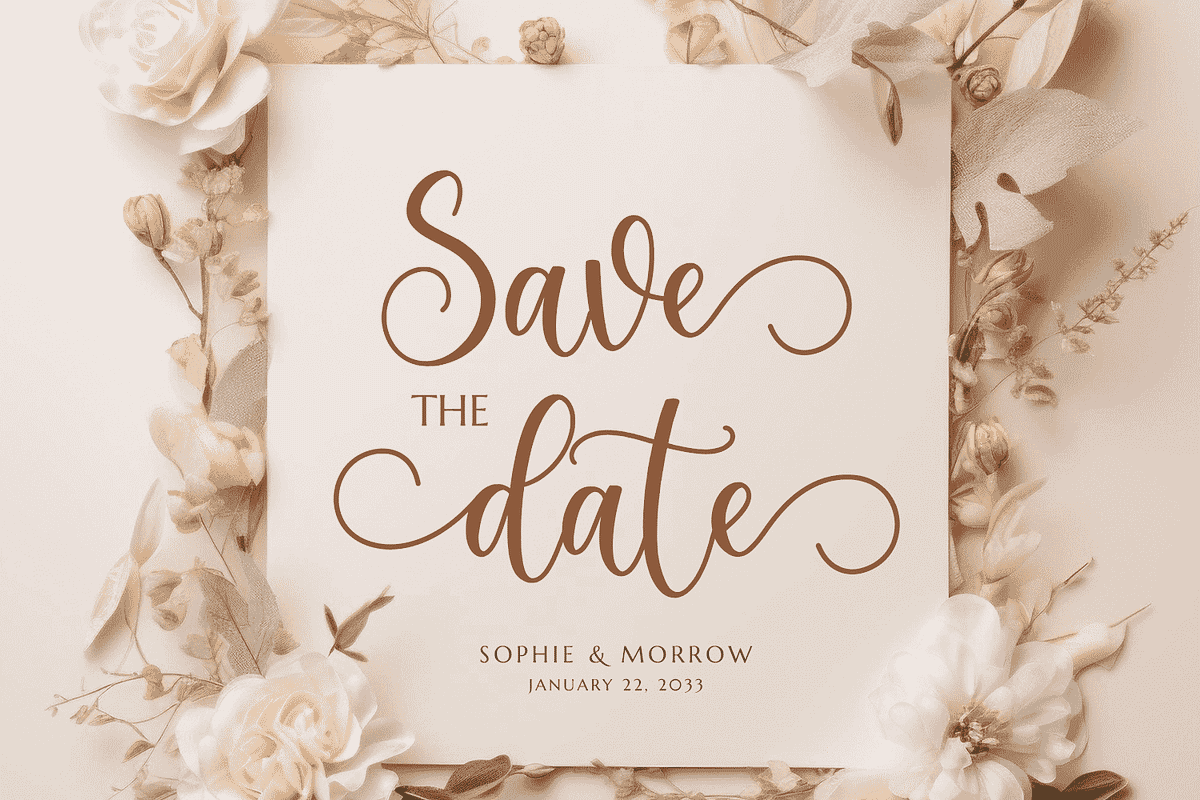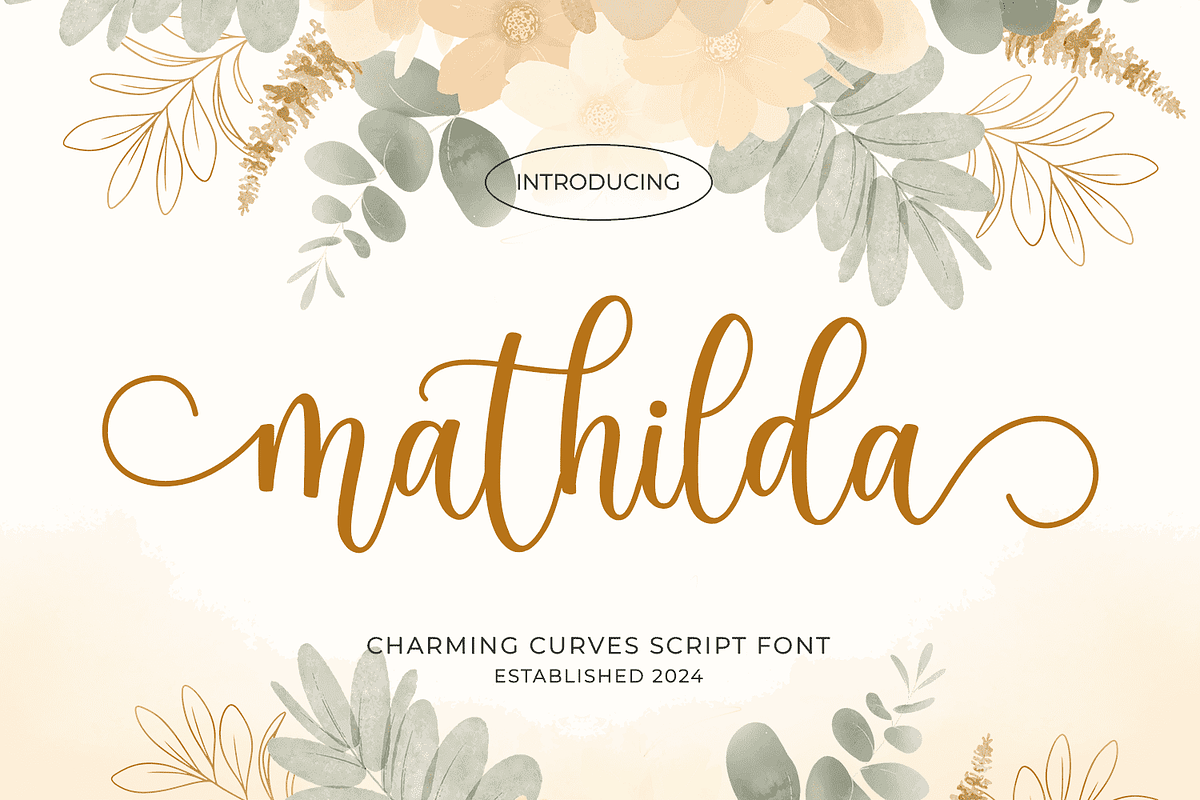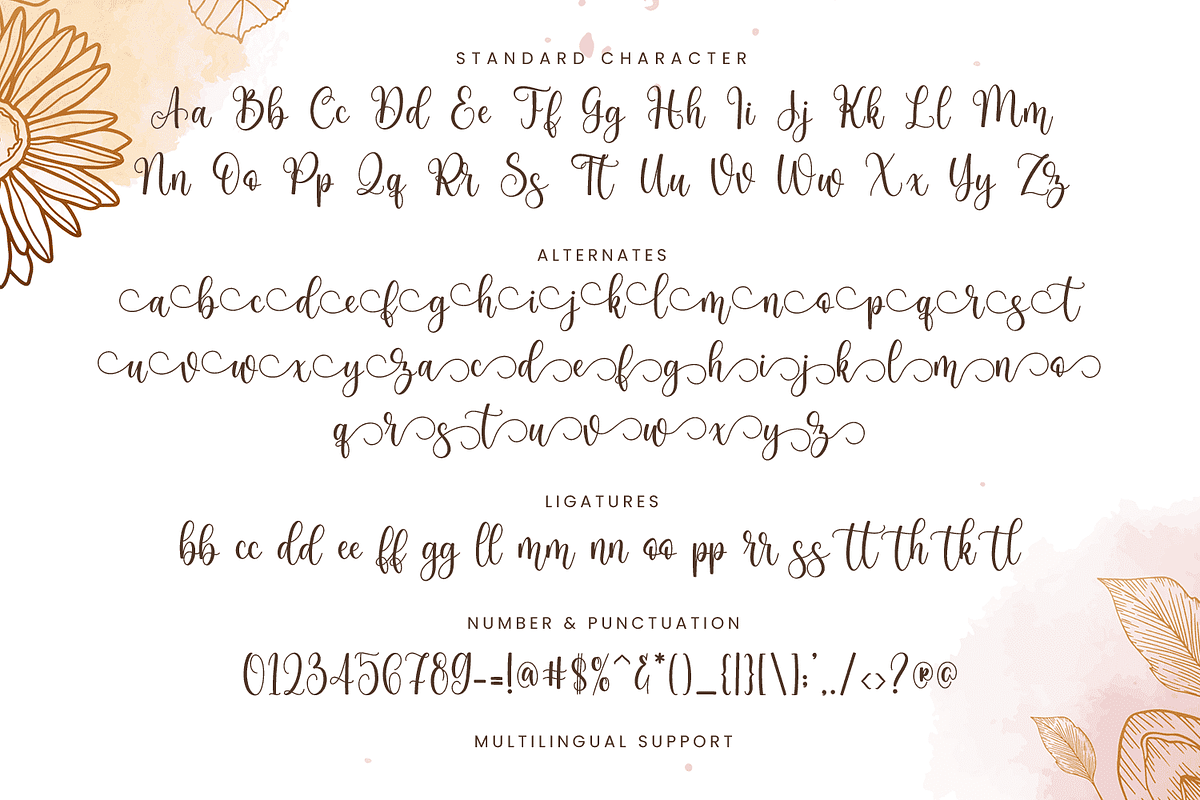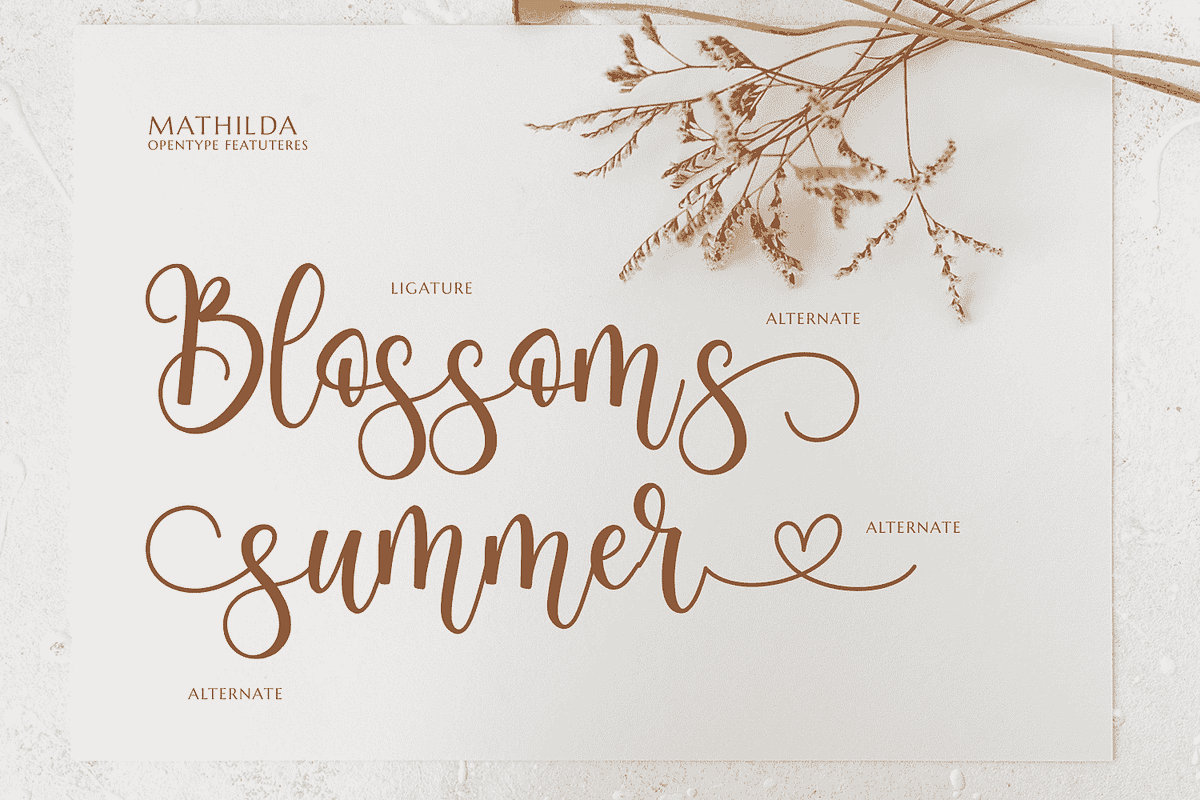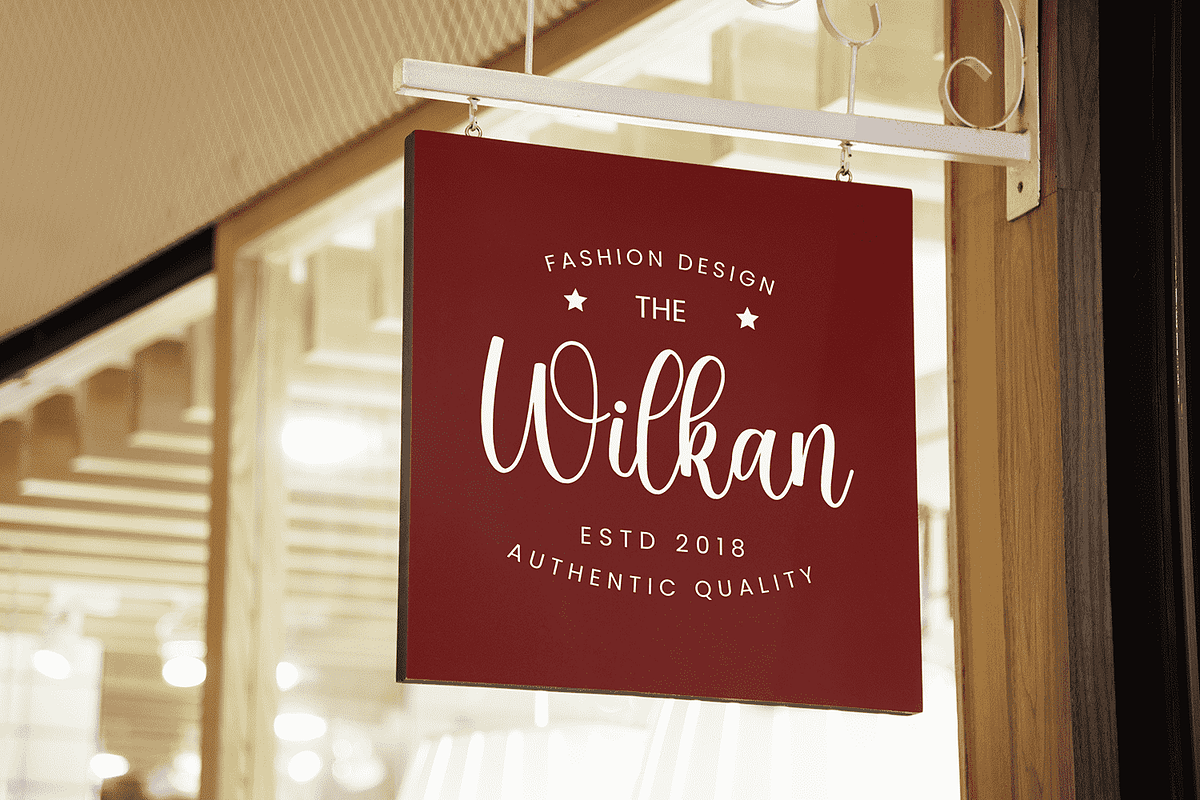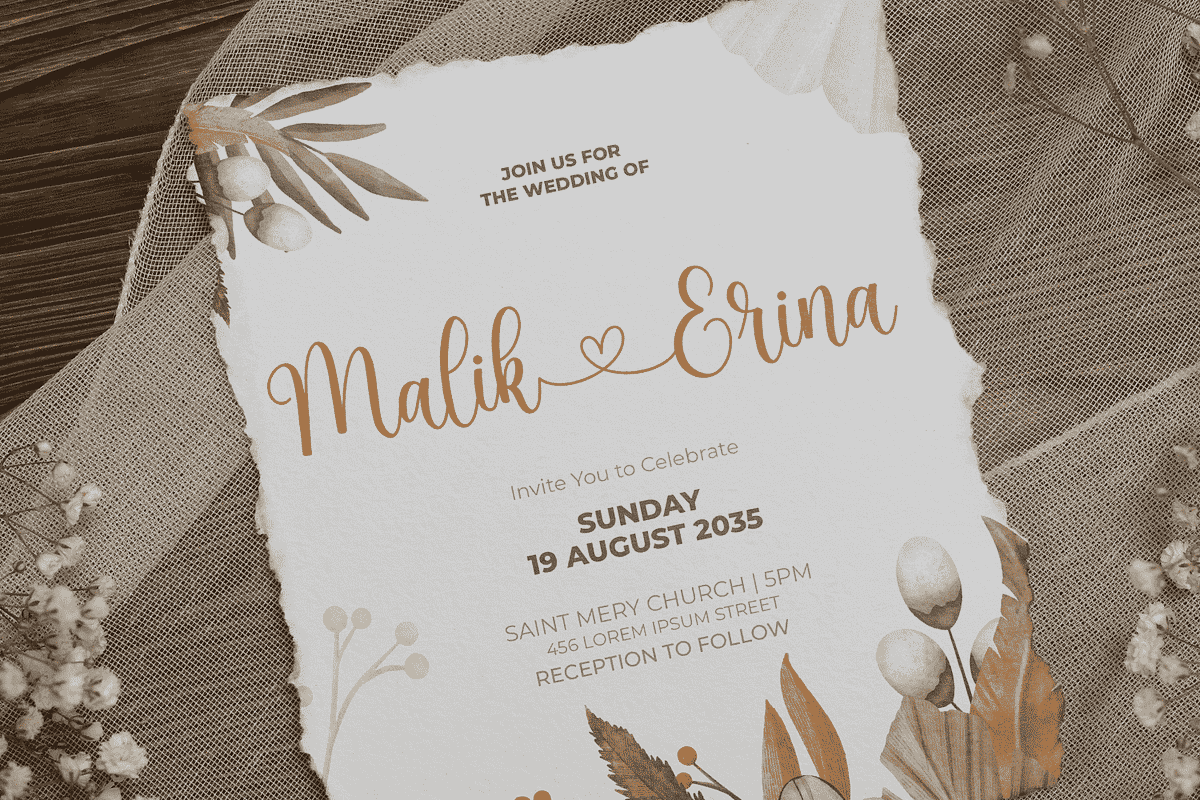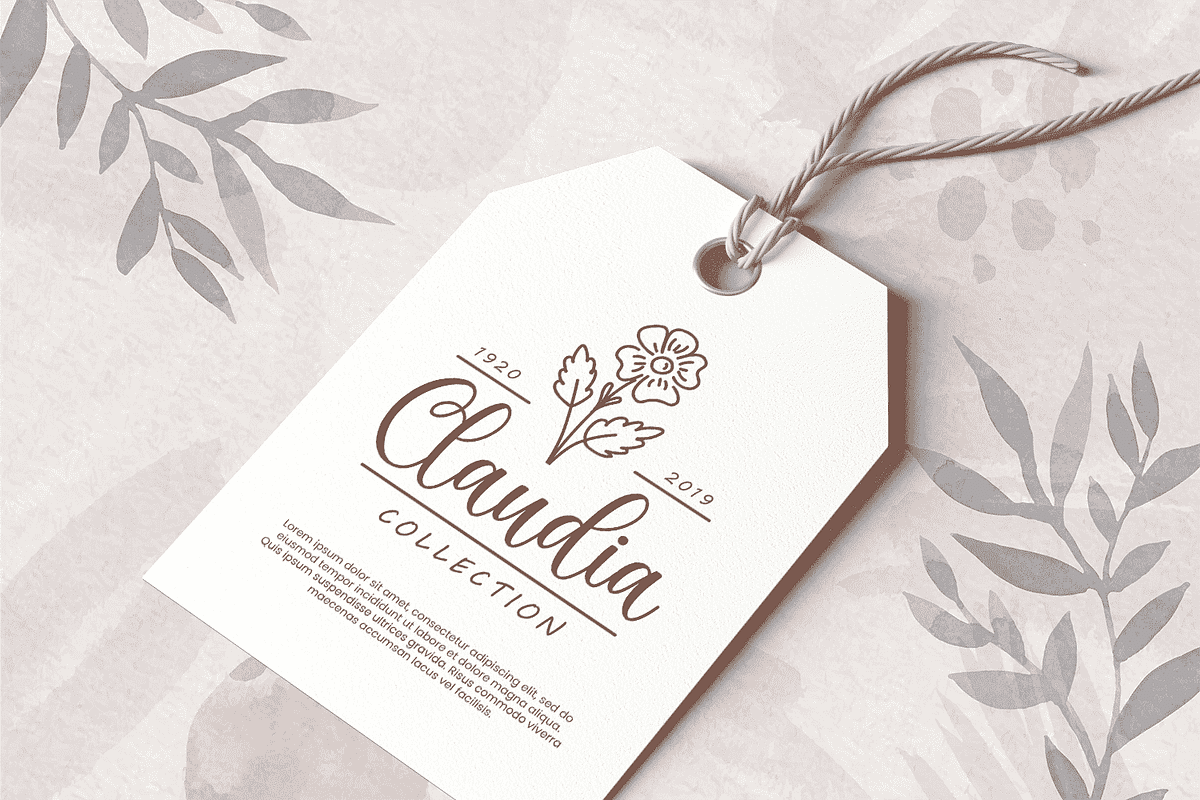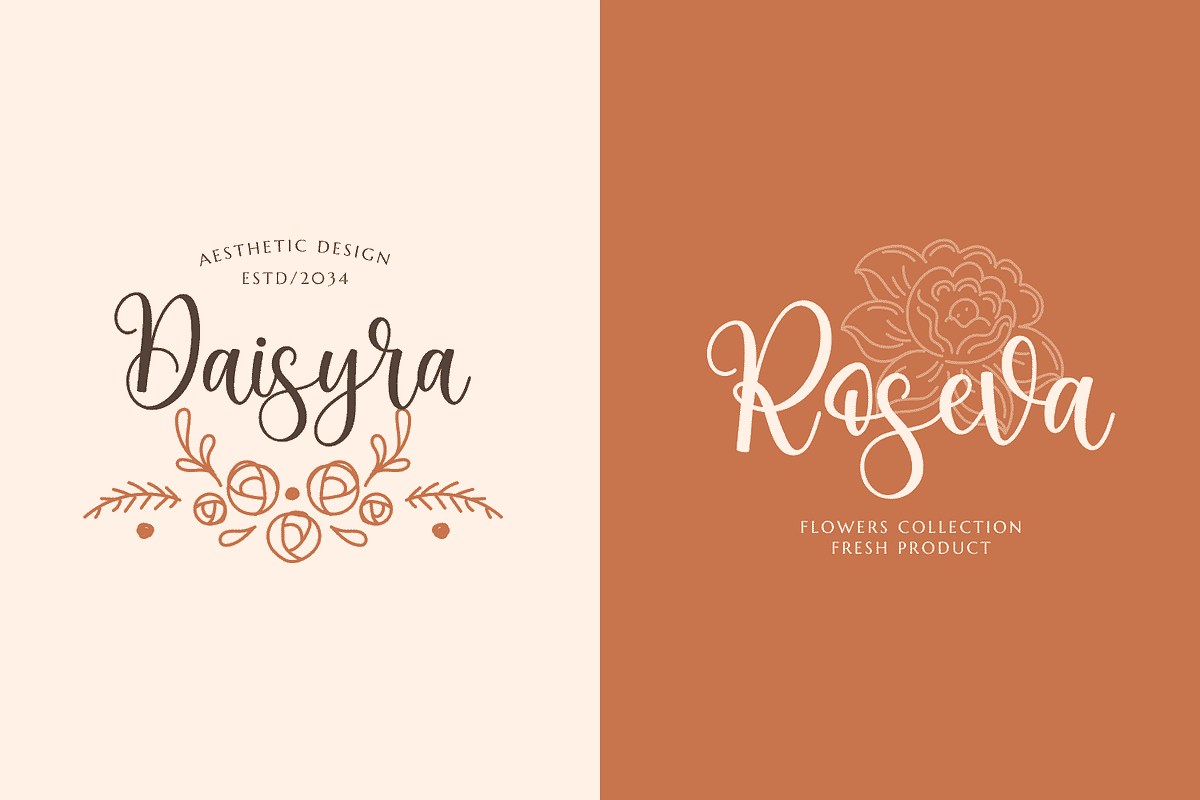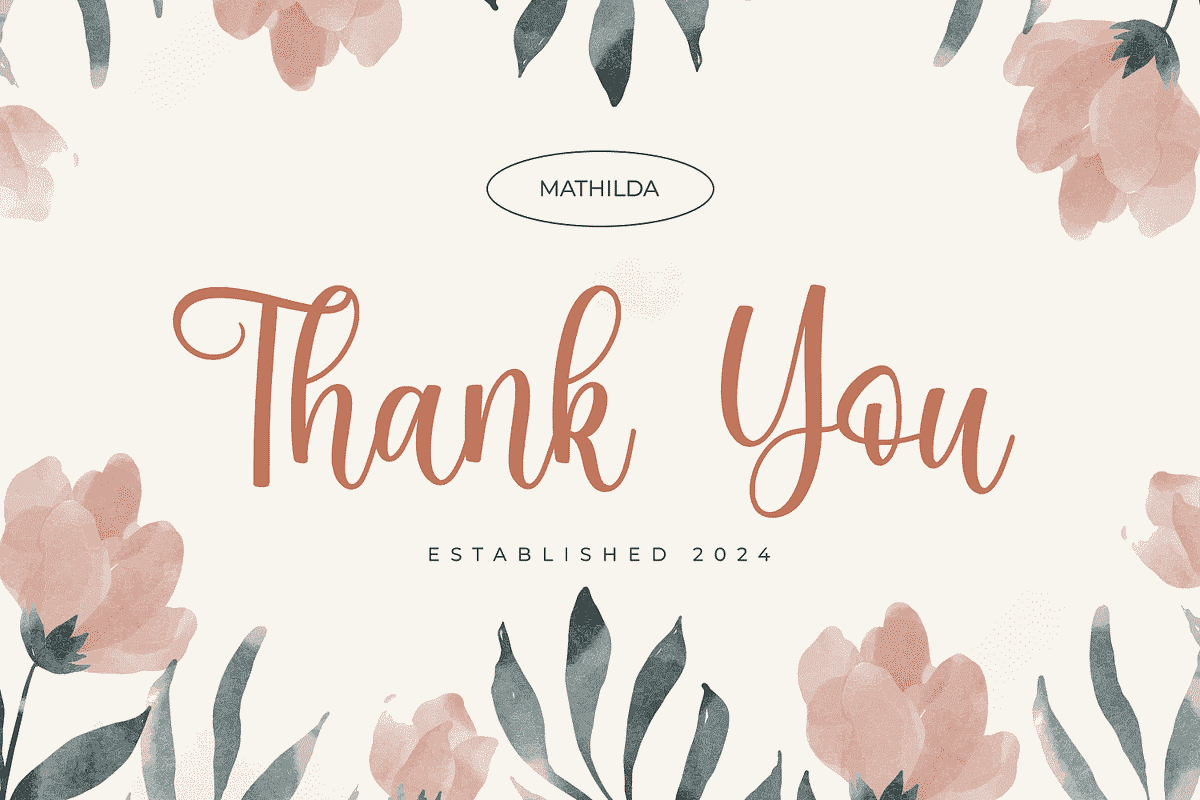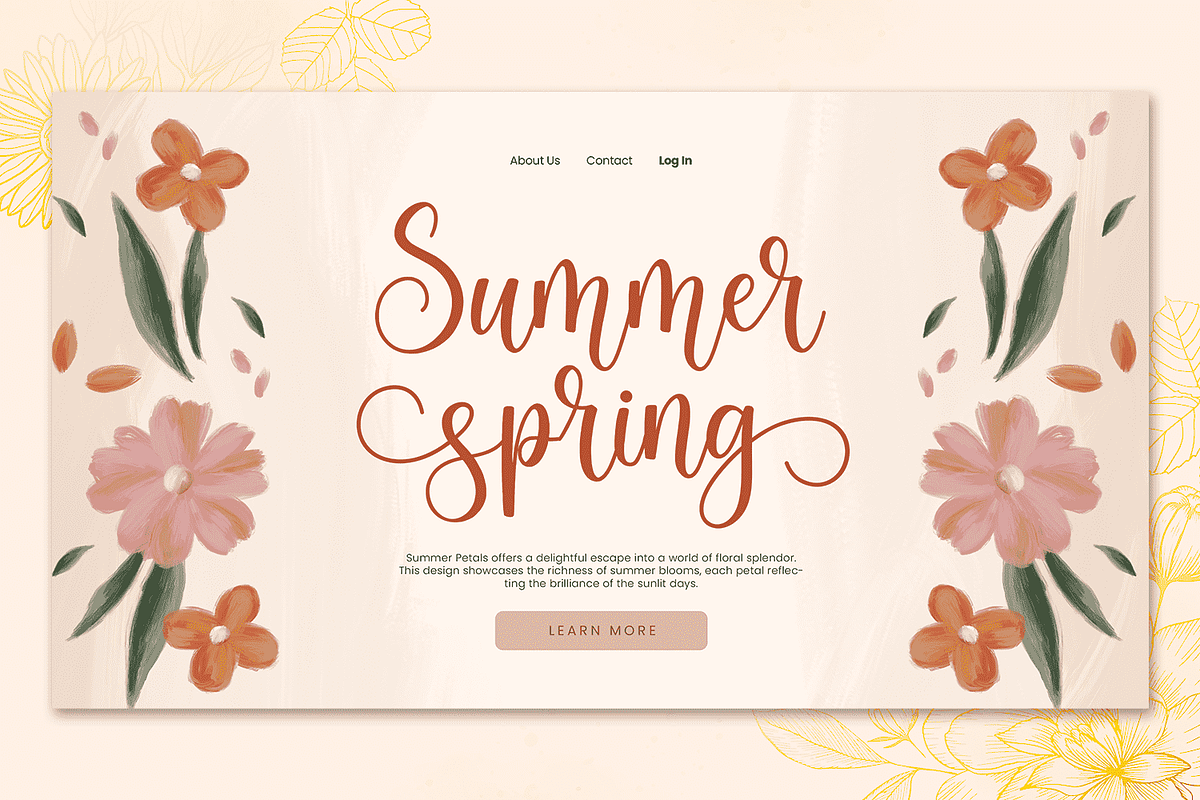
Mathilda
Introducing "Mathilda," a charming script handwritten font that brings an air of elegance and warmth to all your creative projects. Perfectly suited for weddings, invitations, birthdays, and festive occasions like Christmas, New Year, and Easter, Mathilda adds a personal, handcrafted touch to every design.
Each character in the Mathilda font is adorned with beautiful beginning and ending swashes, giving your text a fluid, graceful appearance. With a wealth of alternates available, this font offers endless opportunities for customization, allowing you to tailor your designs to perfectly capture the spirit of any occasion. Whether you’re crafting heartfelt Thanksgiving cards, creating winter-themed projects, or designing festive holiday decorations, Mathilda is your go-to font for bringing your vision to life.
Mathilda’s versatility extends beyond just special occasions. It’s an ideal choice for everyday crafting, whether you’re working on Cricut projects, embroidery, or SVG designs. The font’s elegant curves and flowing lines make it perfect for adding a touch of sophistication to any creative endeavor, ensuring your designs stand out with style.